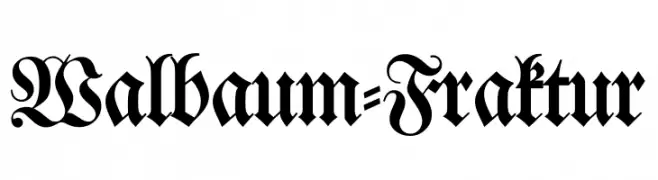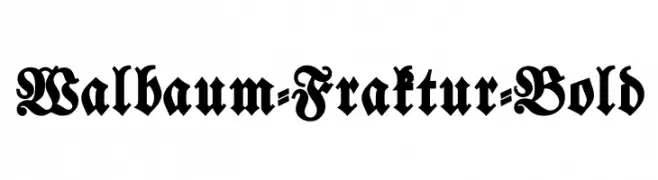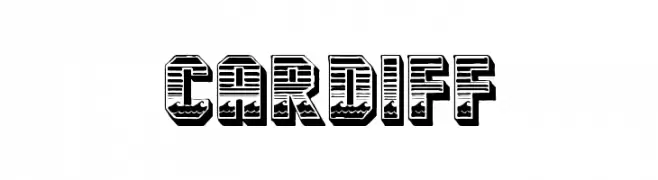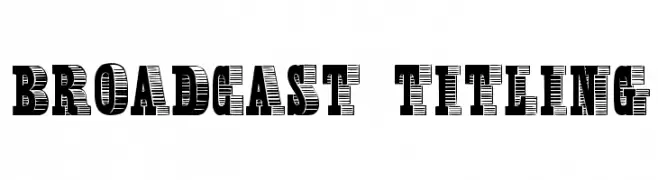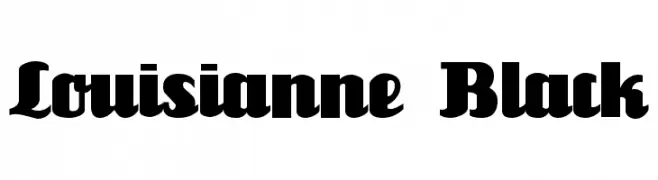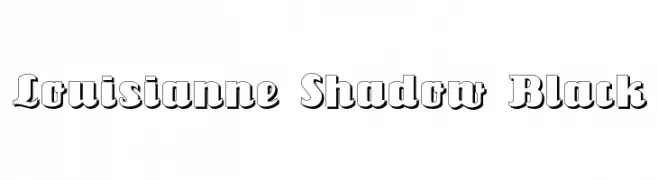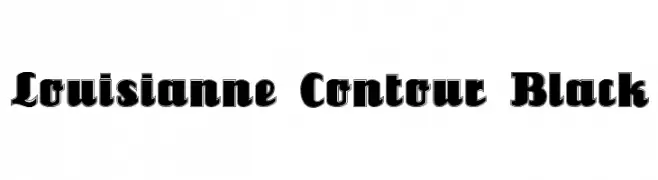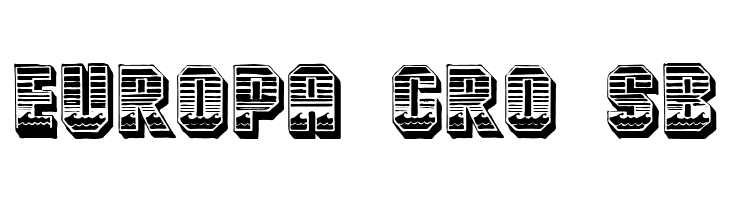
A bold, ornate Blackletter font with high contrast and intricate details.
A bold, ornate Blackletter font with intricate details and strong historical elegance.
A bold, decorative font with a wave-like pattern and 3D shadow effect.
A traditional Blackletter font with ornate and decorative elements.
A bold, decorative font with a three-dimensional effect and strong visual impact.
A classic blackletter font with ornate, angular strokes and decorative flourishes.
A bold, high-contrast font with a modern twist on traditional serif elements.
A bold, shadowed font with a strong, three-dimensional appearance.
A bold, decorative font with a strong contour outline and three-dimensional appearance.